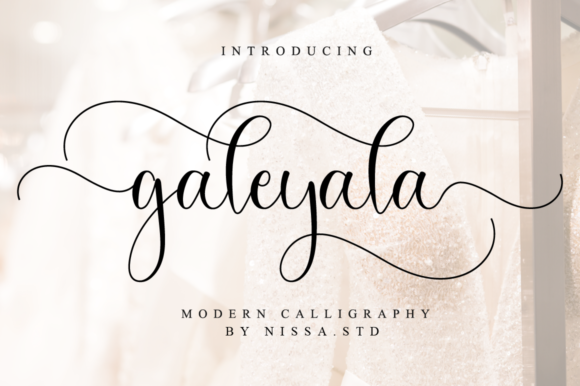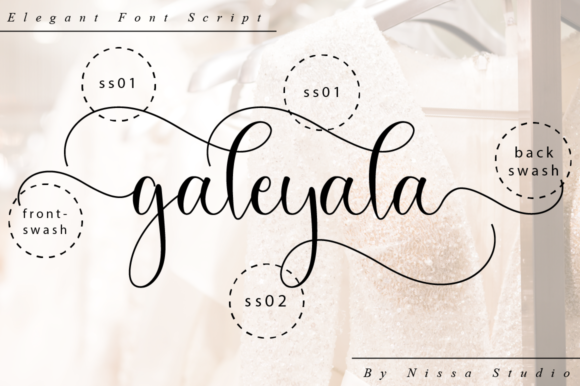
About Galeyala Font
Galeyala is a delicate and elegant handwritten font. It looks lovely on wedding invitations, thank you cards, quotes, greeting cards, logos, business cards and every other design which needs a handwritten touch.